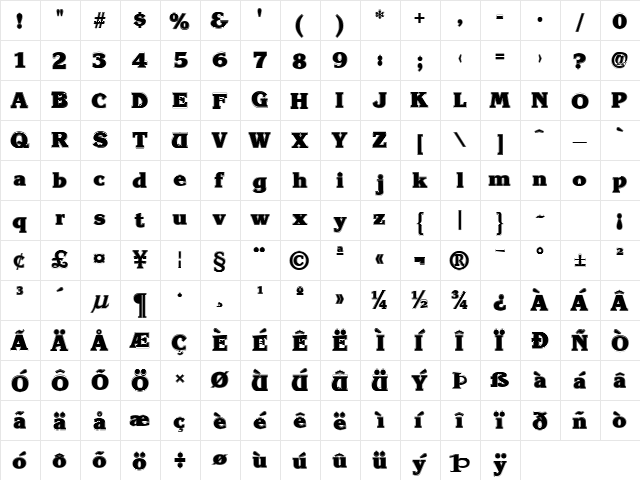
Krone Contour Regular
Design Context for Krone Contour Typeface
Krone Contour takes a measured approach to typography — its balanced proportions and neutral character make it a reliable workhorse for both digital and print work.